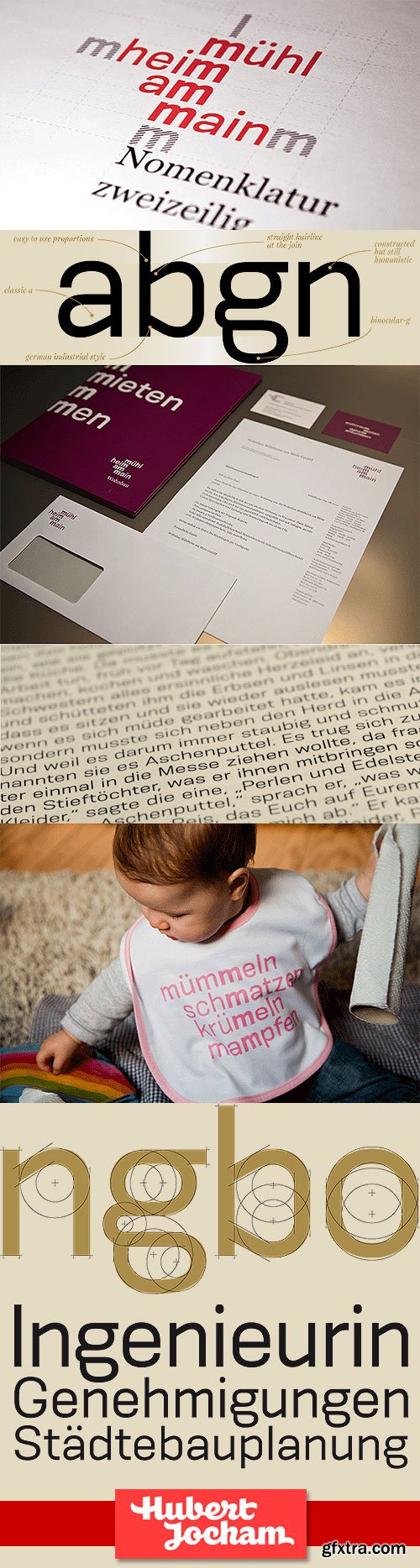
- Germany has got a strong heritage of industrial typefaces. These fonts feel like being constructed by engineers. The shapes look like they have been built with circles and squares. DIN Mittelschrift is one very famous example, or the font on the old german car numberplates. Since the »Romain du Roi« we know that it is tricky to draw a geometrical typeface. For optical reasons you have to go away from circles and lines with exactly one weight.
- Therefore the aime is not to construct a typeface but to draw it the way it feels constructed finally. As you can see on the picture, the final typeface is not constucted at all. The design of a typeface is like stage production. Like stongly made up acters the characters of a typeface must be superrelevated, to be very clear in there seeming. Particularly in small sizes. Konsens has got 9 weights from Light to Ultrabold with italics like most of my other families. In addition to that, there is a Stencil headline companion. It also has got 9 weights but no italics.